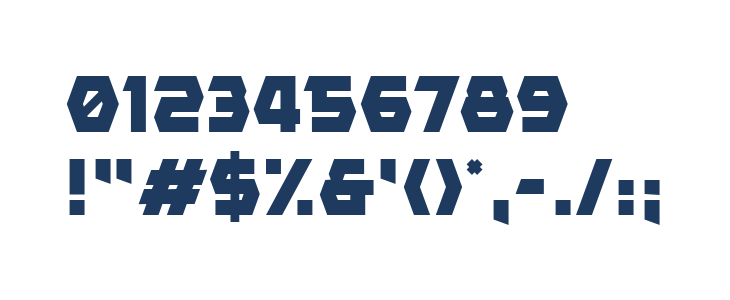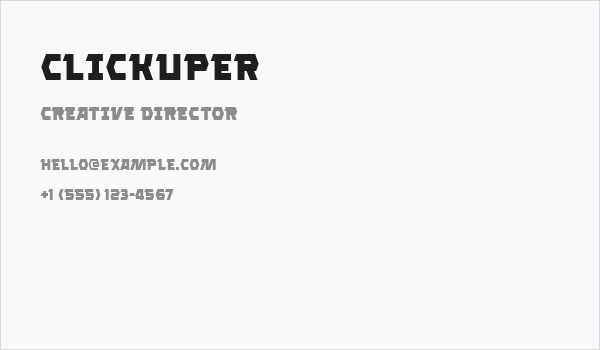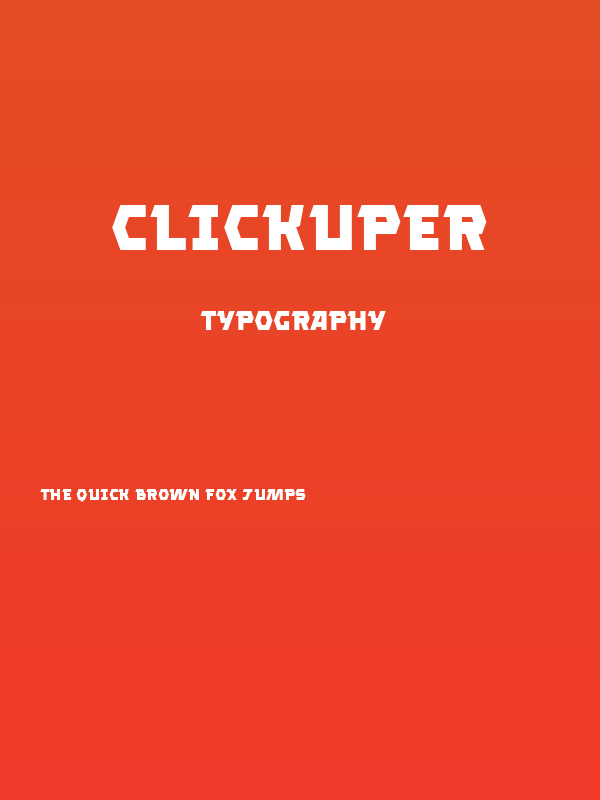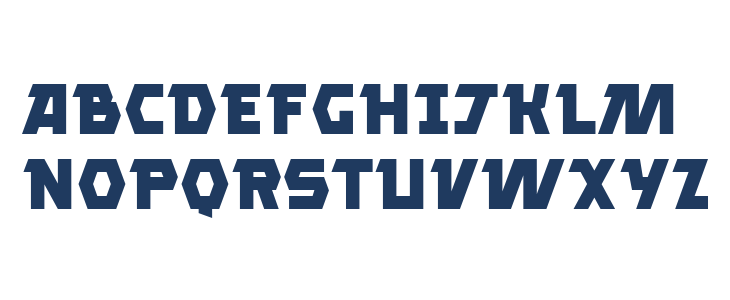
Clickuper Font
Clickuper Description
This font exhibits a bold and geometric style with sharp angles and a strong presence. The characters are blocky and robust, featuring a consistent thickness throughout. The uppercase and lowercase letters maintain a uniform height, contributing to a cohesive and structured appearance. The numerals and special characters are designed to match the boldness of the alphabet, ensuring a harmonious look across all elements. This font's distinct and powerful design makes it ideal for projects that require a strong visual impact.
Clickuper is a free multilingual display typeface with sharp look.
| Proposed Projects | Ideal for posters, logos, video game graphics, and branding materials that require a bold and impactful look. |